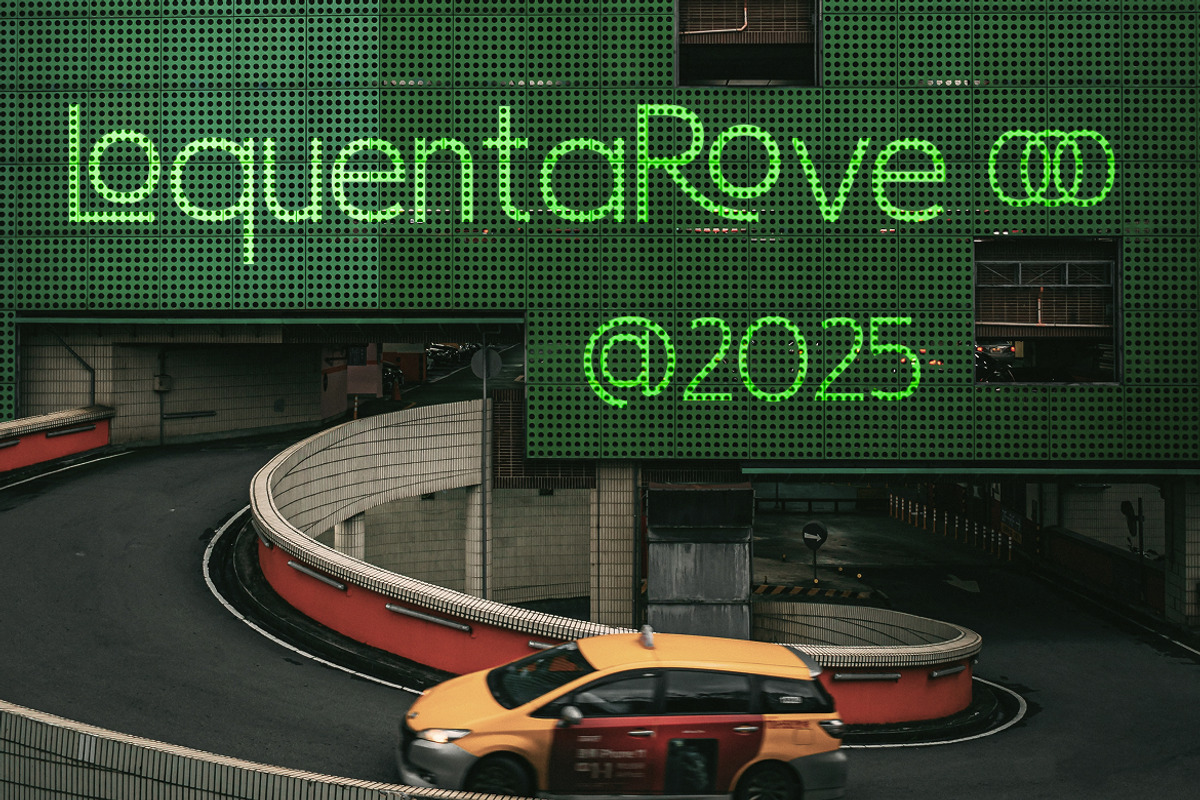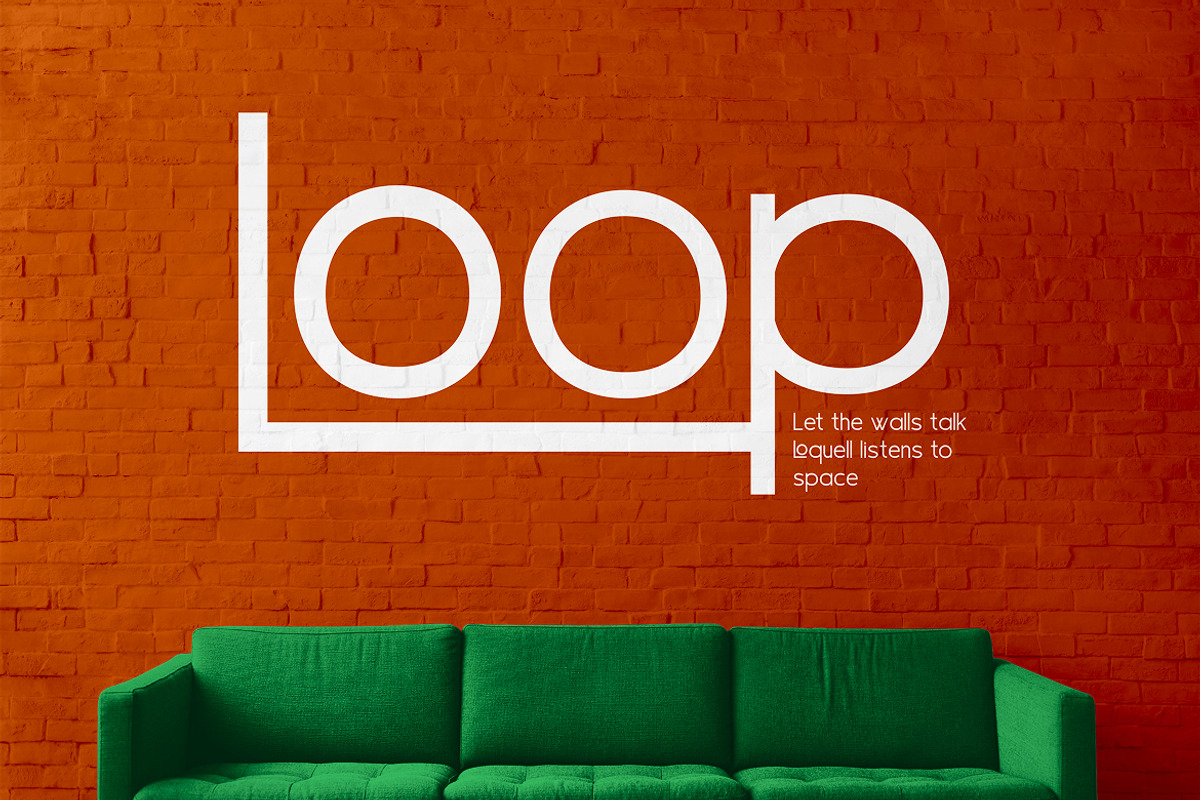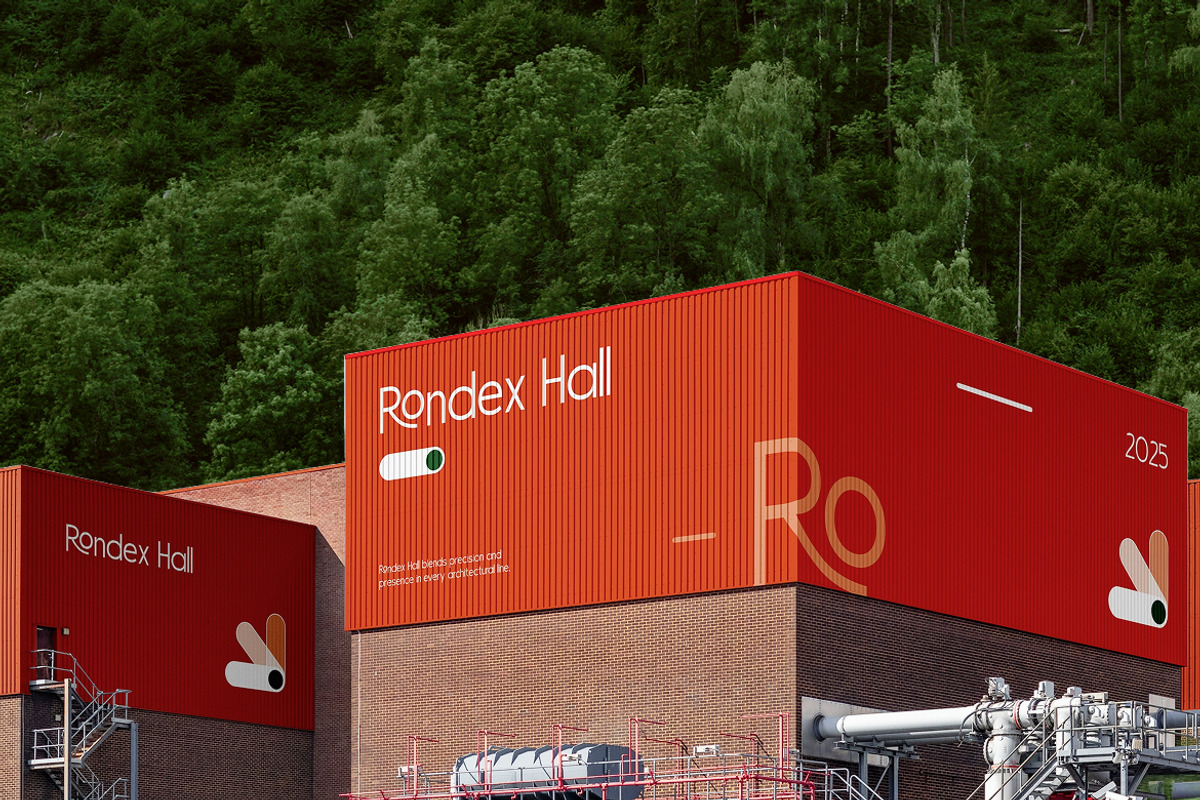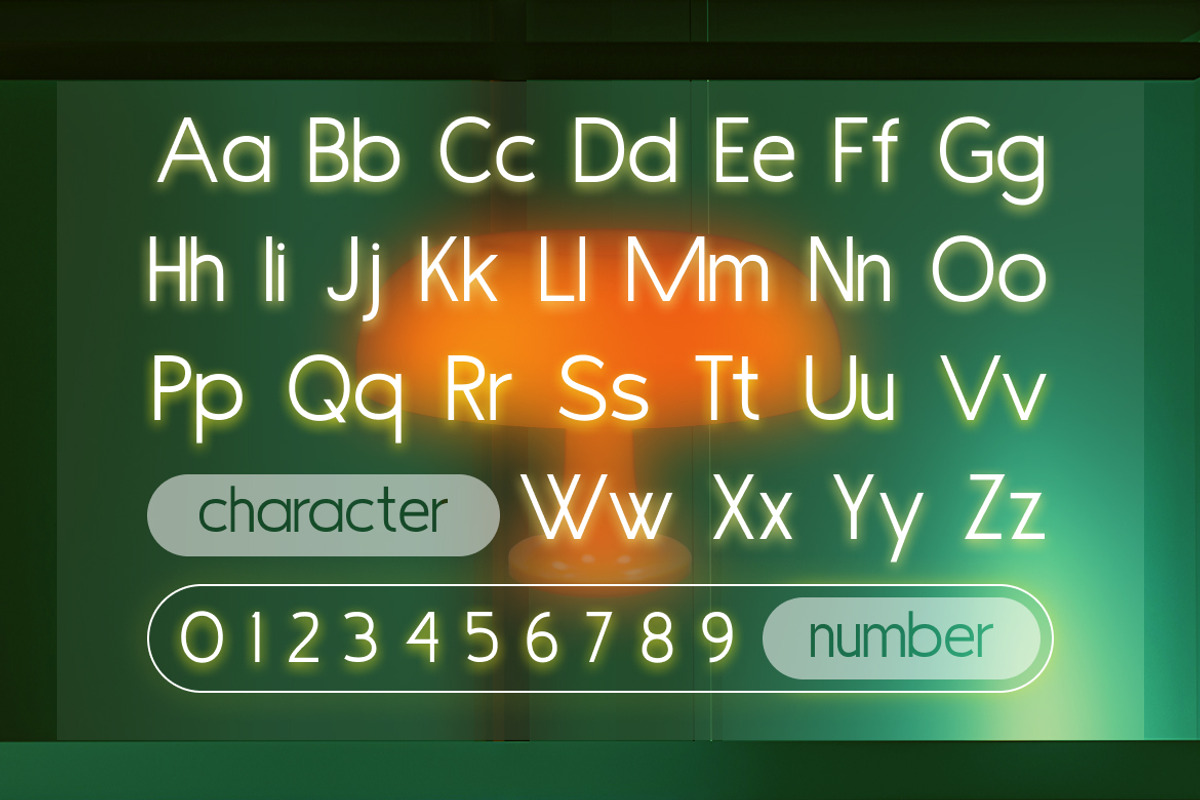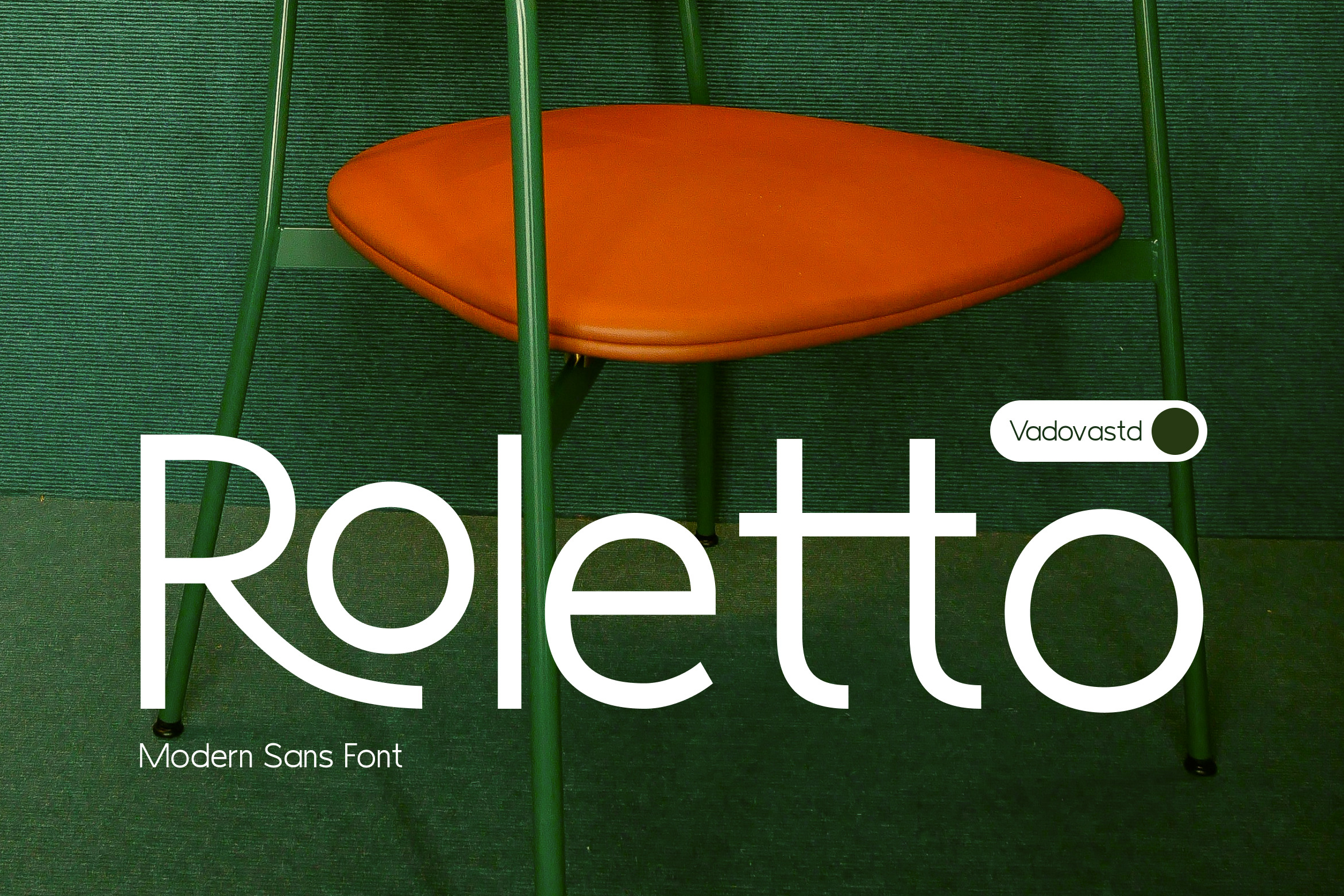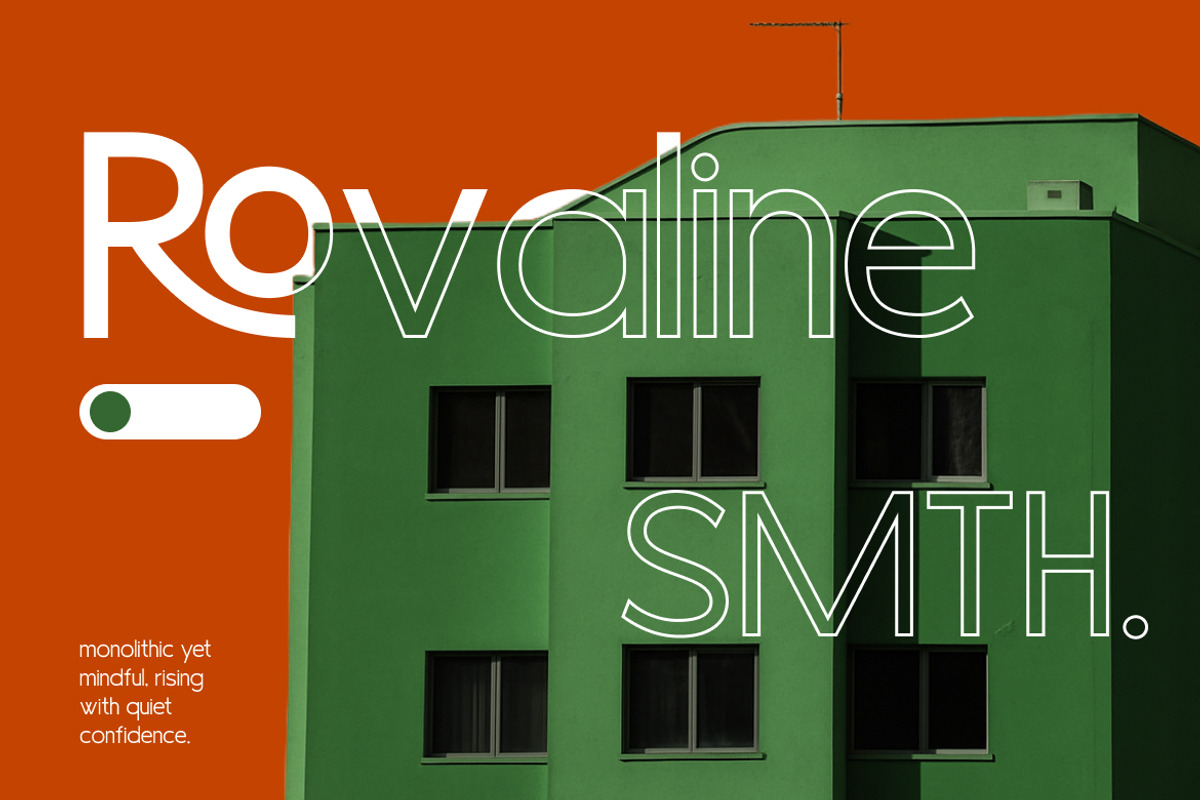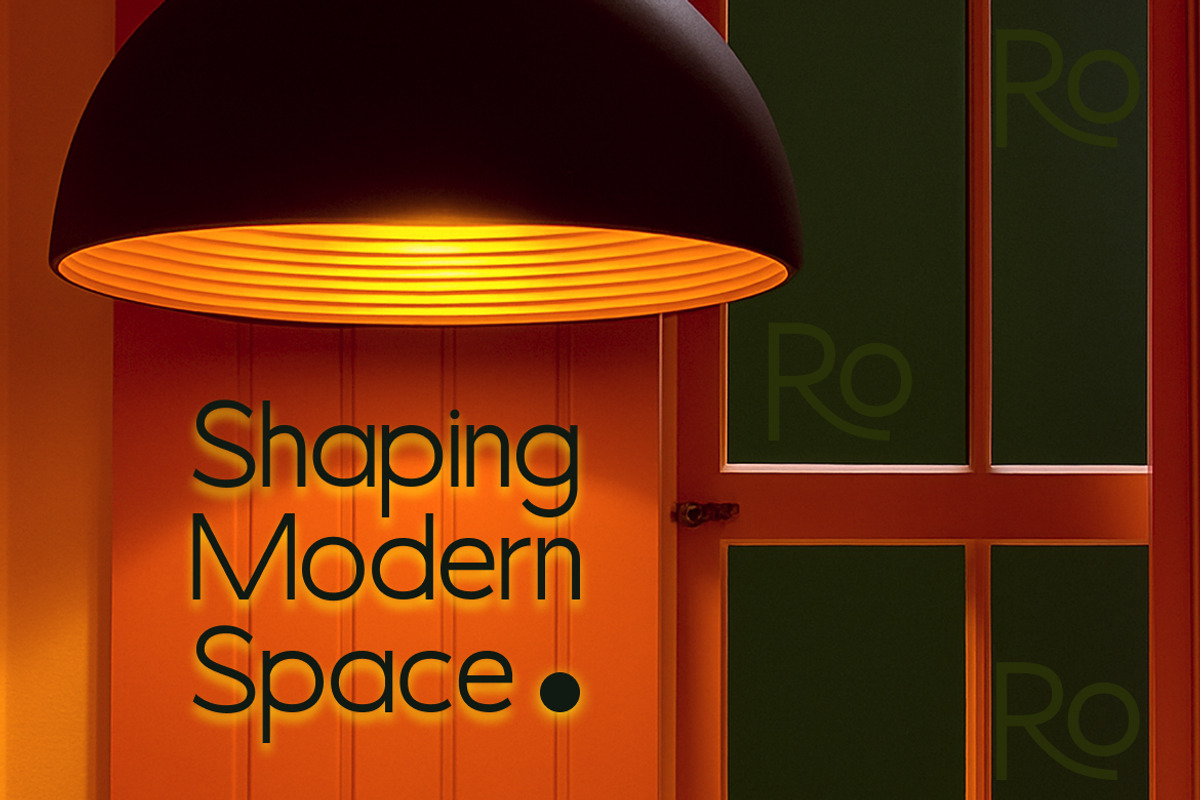
Roletto Modern Sans Serif Font
Roletto is a modern sans serif typeface featuring clean curves, geometric structure, and a minimalist aesthetic. With both uppercase and lowercase characters, numerals, and punctuation, Roletto offers flexibility for a wide range of design projects. Its sleek and contemporary look makes it perfect for branding, editorial layouts, product packaging, and digital interfaces.
Roletto is ideal for designers aiming to communicate clarity, style, and professionalism. Its minimal yet expressive design suits a wide array of creative needs, from tech startups to lifestyle branding. Perfect for logos, website headers, magazine spreads, and packaging that demands a sleek and modern finish.
- Soft geometric foundation with clean modern styling
- Rounded strokes and subtle curve transitions for friendly appeal
- Balanced proportions for improved readability across sizes
- Sleek minimal forms for a contemporary visual tone
- Well-adjusted spacing for optimized legibility in headers or text blocks
- Brand identity systems seeking a calm yet professional tone
- UI/UX design templates for modern tech products and mobile apps
- Editorial magazines and minimalist book layouts
- Product packaging and label design for clean aesthetics
- Social media templates and digital marketing kits with restrained elegance
Speak with clarity and style Roletto brings modern elegance to every design